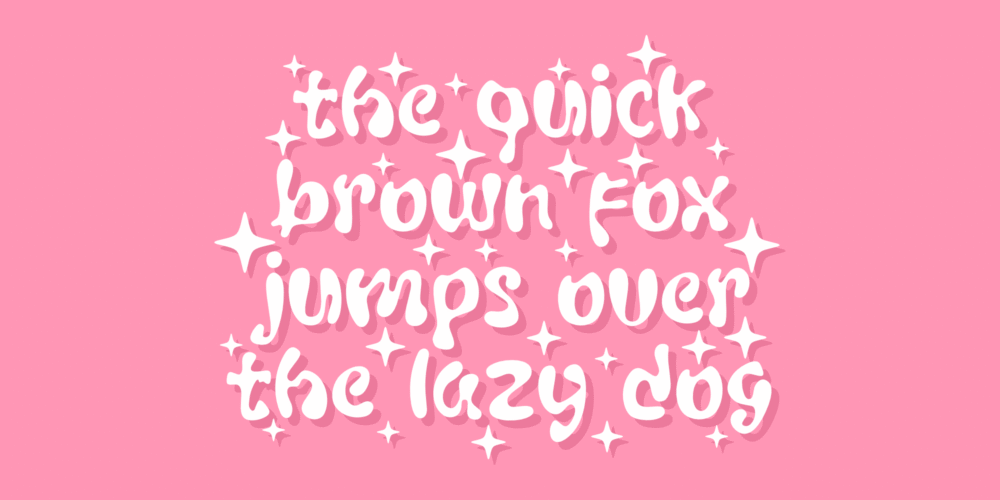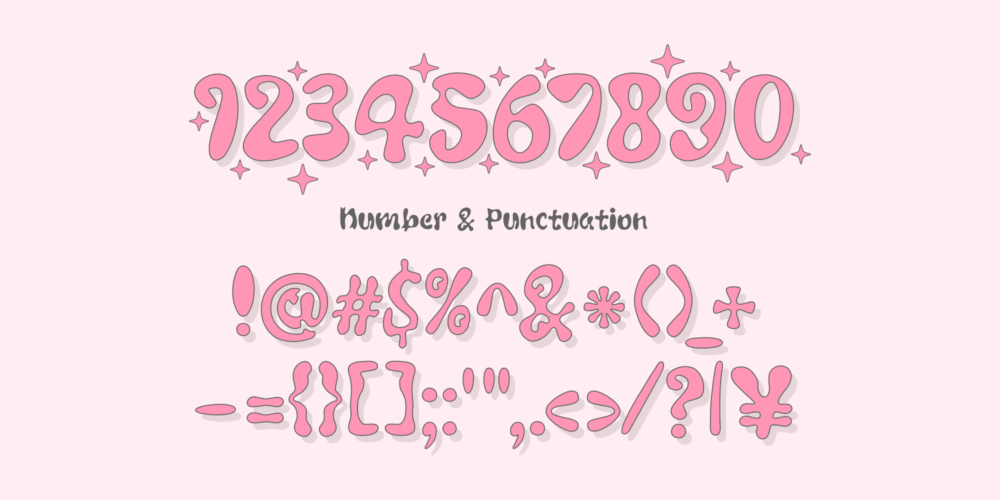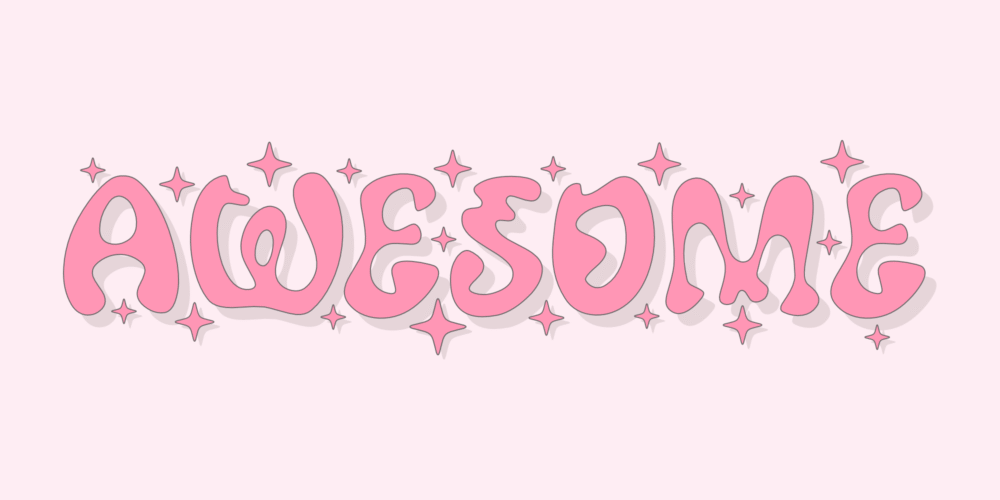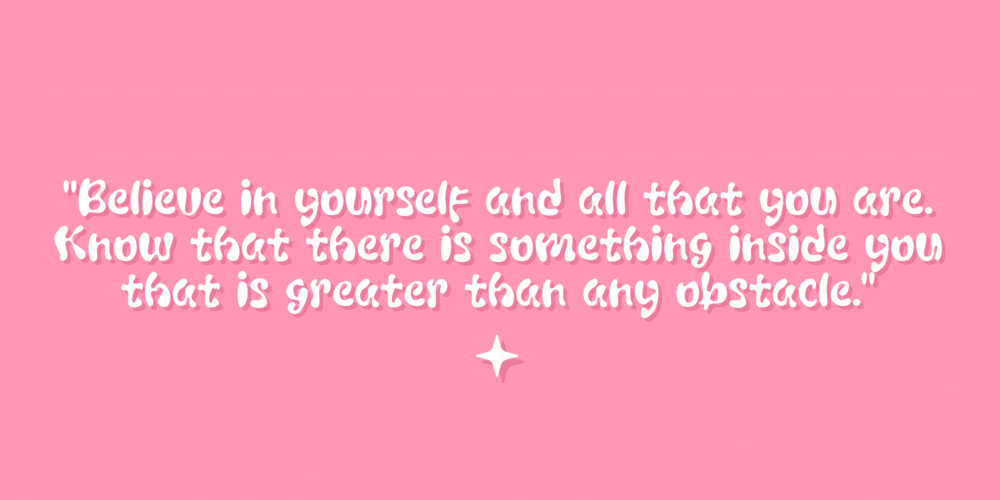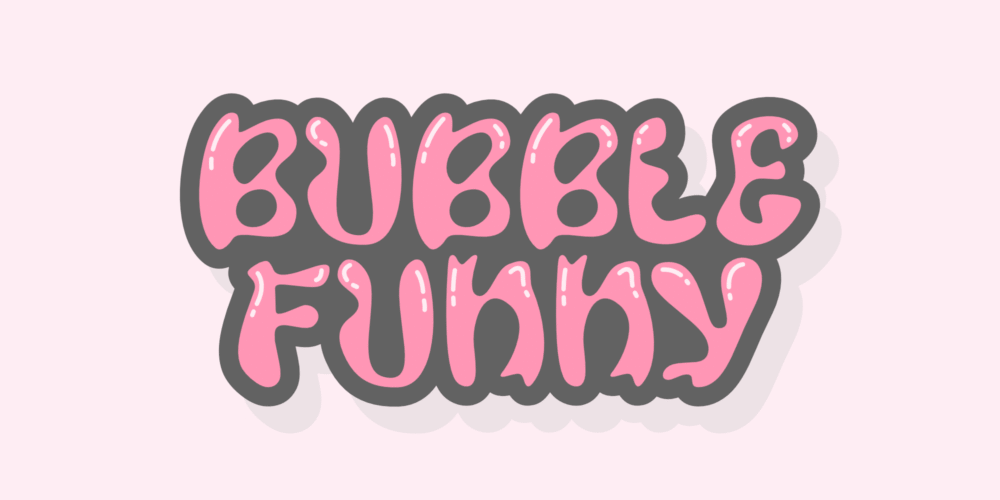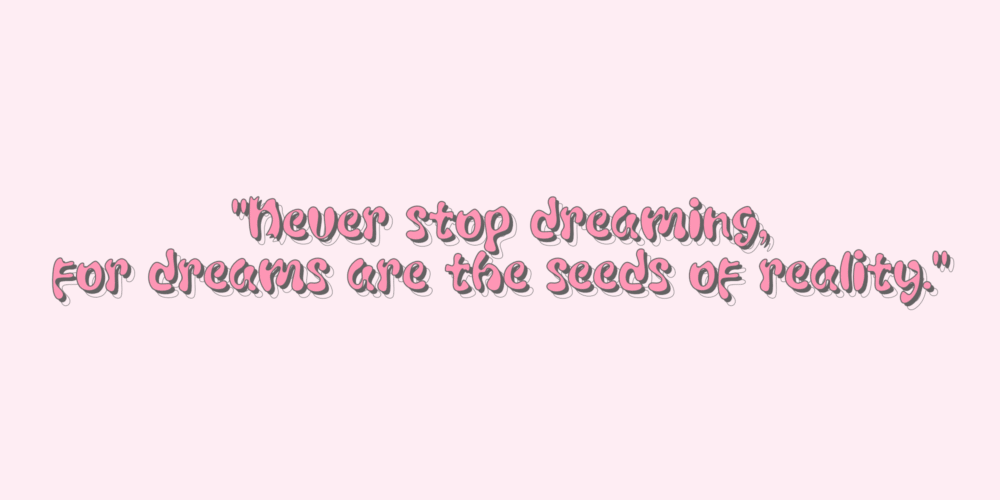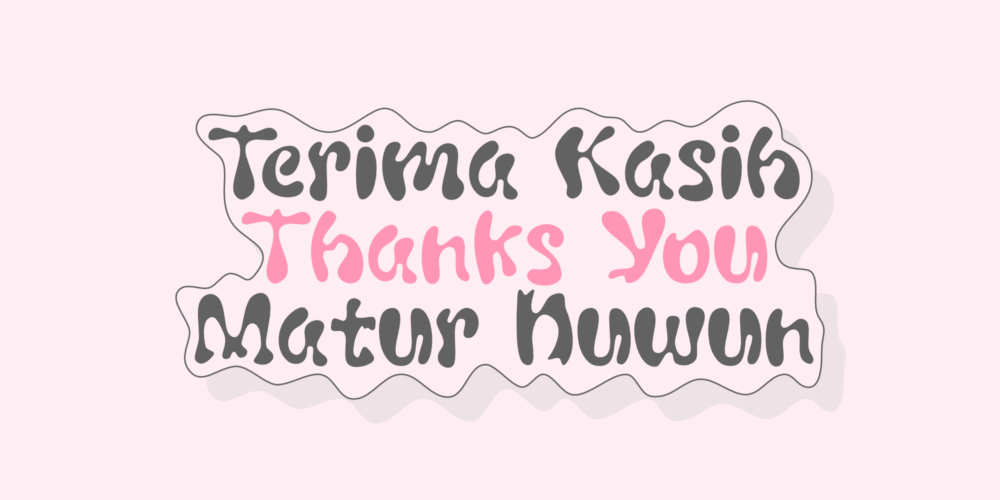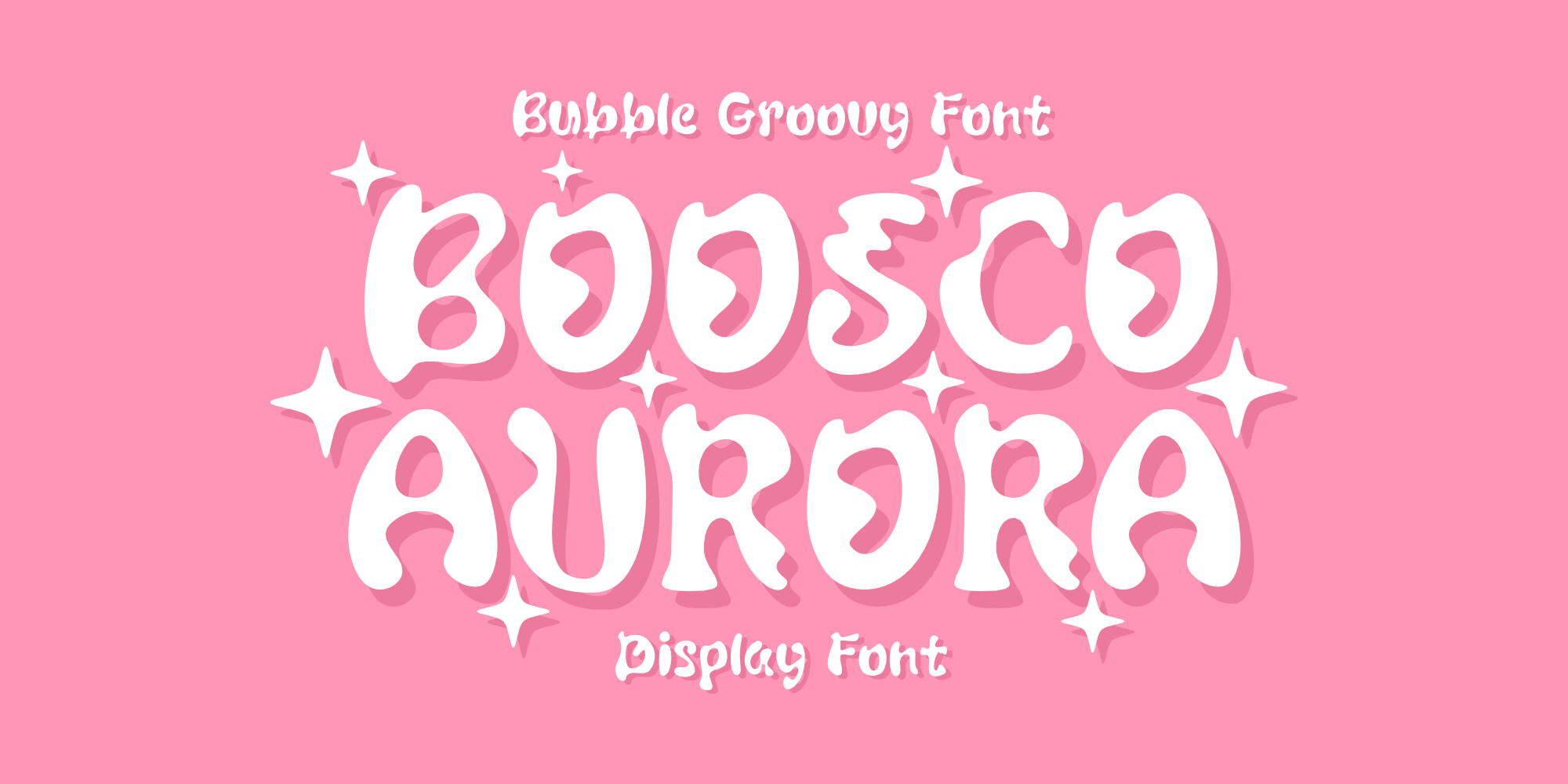
Boosco Aurora is a vibrant and lively display font that bursts with fun and energy. With its bubbly letterforms and playful curves, it perfectly captures the spirit of joy and excitement.
Ideal for cheerful designs, party invitations, children’s projects, social media graphics, and anything that needs a splash of whimsy, Boosco Aurora brings a delightful, lighthearted touch to any creative work.
Let Boosco Aurora brighten up your designs with its bold charm and playful personality!